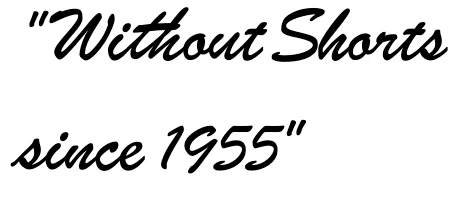
Font looks different than preview
Small problem here - I'm trying to match a font, and whatthefont's AI font finder says it's Brush ATP, so I went to Creative Cloud and downloaded it. It shows up right on whatthefont, it shows up right on Creative Cloud's preview, but it does NOT show up right in Photoshop. . . The quotation marks in particular are different.
Can anyone help me out and explain this?
Whatthefont, Creative Cloud preview, Photoshop respective screenshots included
By default Photoshop has Smart Quotes enabled, which is why the quotation marks look different.
If you were to turn off Smart Quotes in Photoshop 2024>Settings (Preferences)>Type, then the
quotation marks would look the same.
@aralessbmn wrote: Can anyone help me out and explain this?
I looked for "Brush ATP" on Adobe Fonts and could only find "AFT Brush". Which did WhatTheFont actually suggest? The two names could explain the difference — they are not the same typeface.
ATF Brush comes in five type styles: Light, Book, Regular, Bold, and Black. Which are you using? Are you using the same in both places?
Please don't turn off Smart Quotes. If you do, then you will be using inch marks and foot marks — not quotation marks.